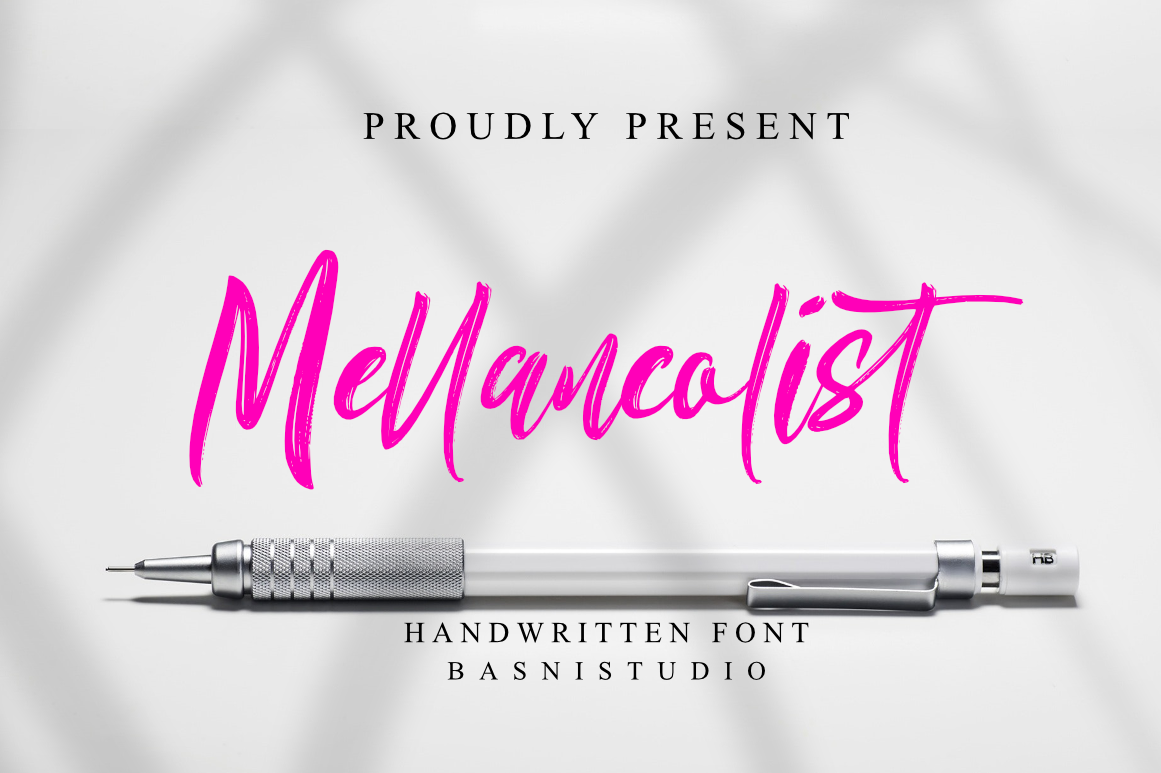
Mellancolist- Handwritten Font
Introducing Mellancolist- Handwritten Font
Mellancolist is perfect for branding, websites and editorial designs. Includes all upper and lower case letters, multilingual support & punctuation. everything can be easily accessed using software that supports OpenType.